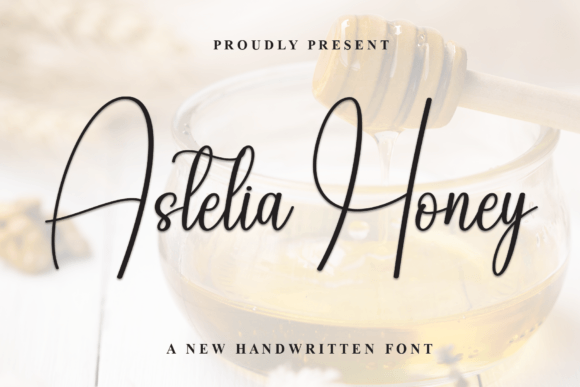
Astelia Honey Font: The Sweetest Addition to Your Design
Are you looking for a font that can add a touch of sweetness and friendliness to your designs? Look no further than Astelia Honey Font! This beautiful handwritten font is perfect for creating wedding invitations, cards, and other designs that require a fun and playful touch.
What is Astelia Honey Font?
Astelia Honey Font is a sweet and friendly handwritten font that is designed to bring a touch of warmth and personality to your designs. With its cute and versatile style, this font is ideal for a wide range of projects, from wedding invitations and cards to social media graphics and more.
One of the standout features of Astelia Honey Font is its unique and charming style. The font has a hand-drawn feel that gives it a personal and approachable vibe, making it perfect for designs that require a touch of whimsy and fun.
Key Features of Astelia Honey Font
- Cute and Versatile: Astelia Honey Font is designed to be cute and versatile, making it perfect for a wide range of projects.
- Handwritten Style: The font has a beautiful handwritten style that gives it a personal and approachable feel.
- Sweet and Friendly: The font is designed to be sweet and friendly, making it perfect for designs that require a touch of warmth and personality.
- Easy to Read: Despite its playful style, Astelia Honey Font is easy to read, making it perfect for use in body text and other applications where legibility is important.
Uses for Astelia Honey Font
Astelia Honey Font is a versatile font that can be used in a wide range of projects, including:
- Wedding Invitations: The font’s sweet and friendly style makes it perfect for wedding invitations, save-the-date cards, and other wedding-related designs.
- Cards and Stationery: Astelia Honey Font is also great for creating cards, stationery, and other paper goods that require a personal touch.
- Social Media Graphics: The font’s playful style makes it perfect for social media graphics, including Facebook posts, Instagram stories, and more.
- Branding and Packaging: Astelia Honey Font can also be used in branding and packaging designs to add a touch of personality and whimsy.
Tips for Using Astelia Honey Font
Here are a few tips for getting the most out of Astelia Honey Font:
- Use it with a Personal Touch: Astelia Honey Font is designed to be personal and approachable, so be sure to use it in designs that require a human touch.
- Experiment with Colors: The font looks great in a wide range of colors, so don’t be afraid to experiment and find the perfect hue for your design.
- Pair it with Other Fonts: Astelia Honey Font can be paired with other fonts to create a unique and interesting look. Try pairing it with a bold sans-serif font for a fun and playful contrast.
Astelia Honey Font is a sweet and friendly handwritten font that is perfect for adding a touch of whimsy and fun to your designs. With its cute and versatile style, this font is ideal for a wide range of projects, from wedding invitations and cards to social media graphics and more. Whether you’re a designer, a DIY enthusiast, or just someone who loves working with fonts, Astelia Honey Font is sure to become a favorite in your collection.